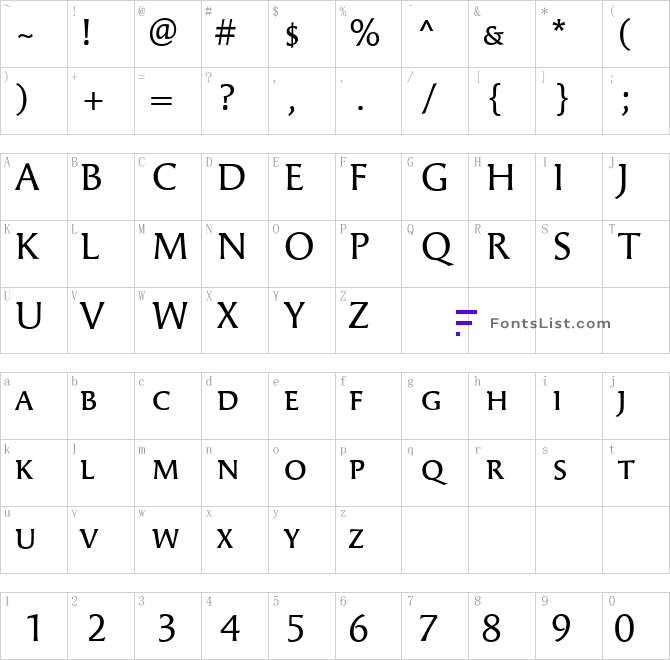
- Font Name:Angie SmallCaps
Angie-SmallCaps.ttf is a very beautiful artistic font, Angie-SmallCaps.ttf is widely used in the design and printing of various books and pictures,Angie-SmallCaps.ttf has a strong visual impact,Angie-SmallCaps.ttf is a commonly used font in newspapers, magazines and books, and is used in posters, e-commerce Poster design, store design, logo design, font design and other fields.Angie-SmallCaps.